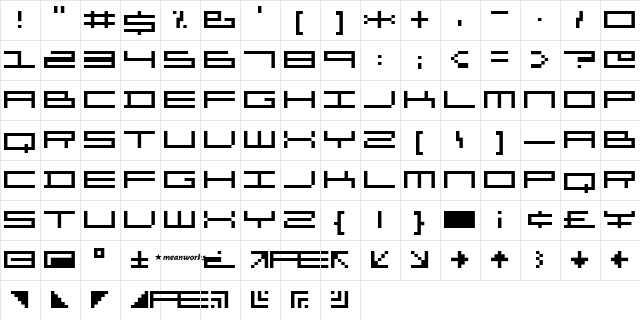
Organ Regular Font Preview
Organ Regular
Design Context for Organ Typeface
Organ takes a measured approach to typography — its balanced proportions and neutral character make it a reliable workhorse for both digital and print work.